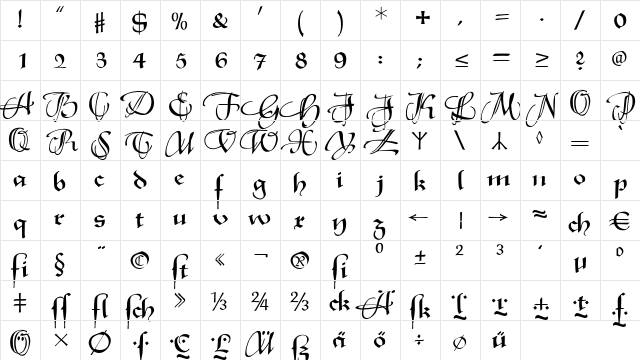
XmasTerpieceSwashes Regular
Design Context for XmasTerpieceSwashes Typeface
XmasTerpieceSwashes brings a calligraphic fluidity to the page — its connecting strokes and expressive curves give it an unmistakably human quality.
Font Pairing: Combine XmasTerpieceSwashes with a simple geometric sans for maximum contrast — the tension between flowing curves and clean structure is a classic typographic pairing.
Pro Tip: Pair XmasTerpieceSwashes with a clean sans-serif for supporting text. The contrast between fluid script and geometric structure creates an elegant typographic hierarchy.